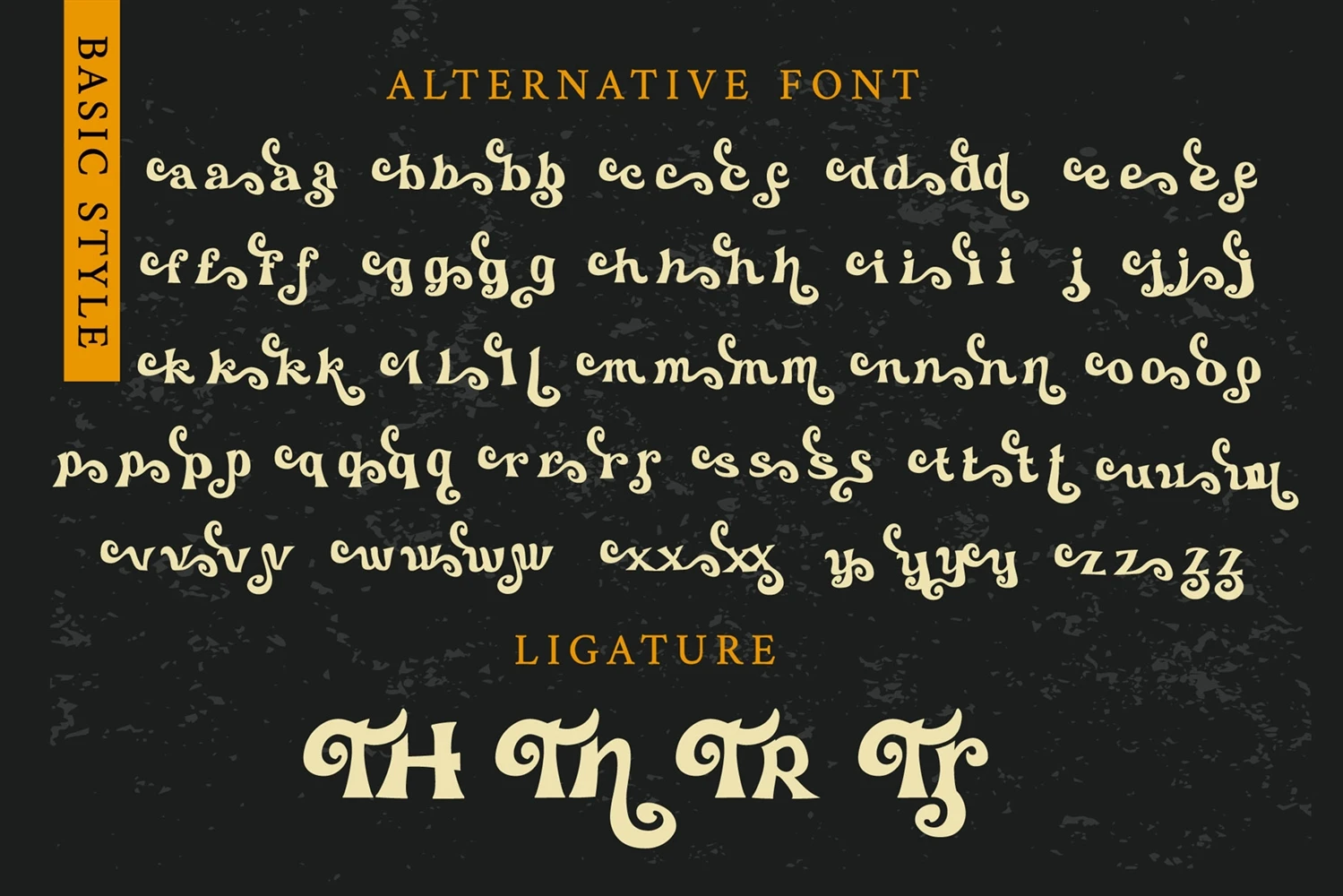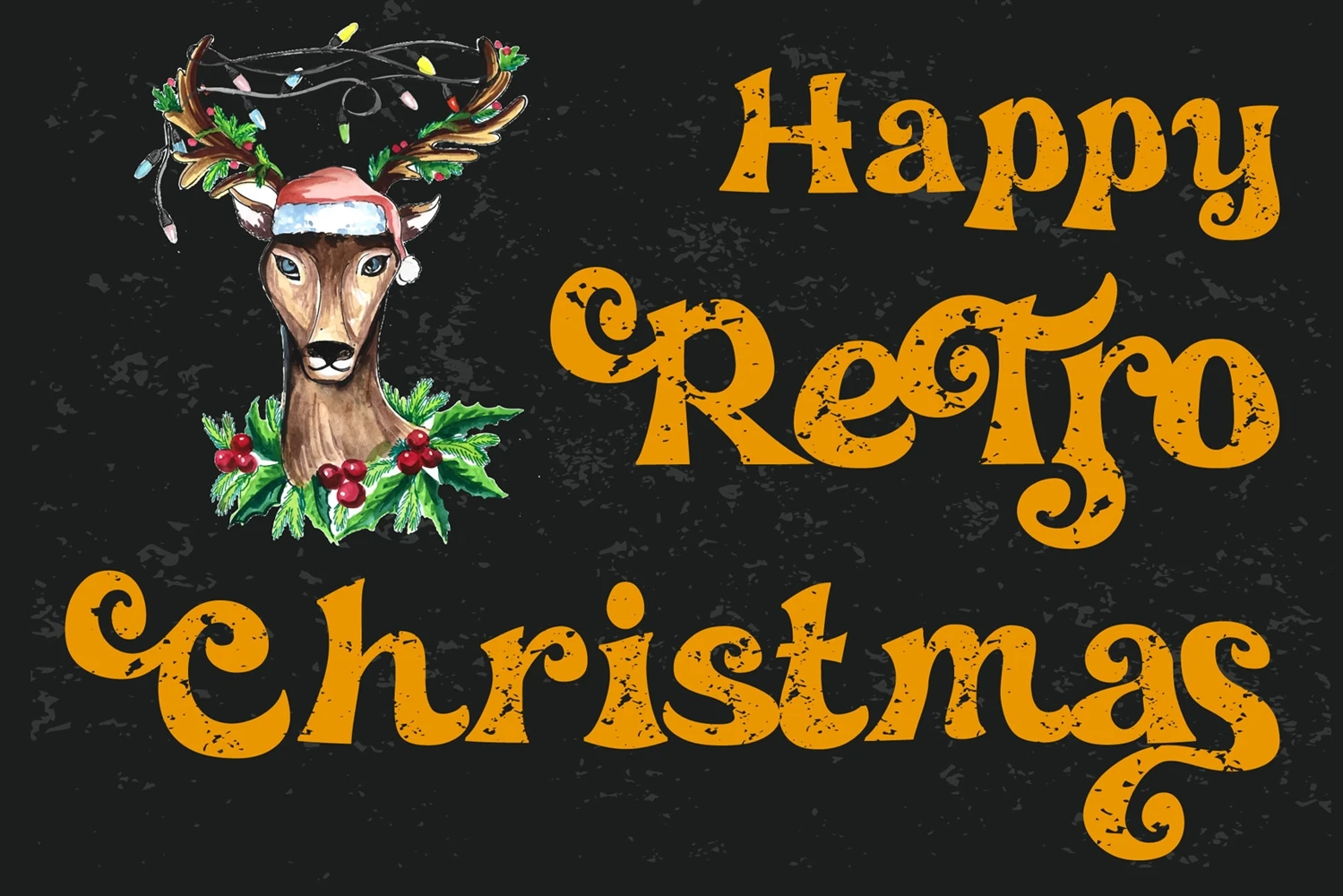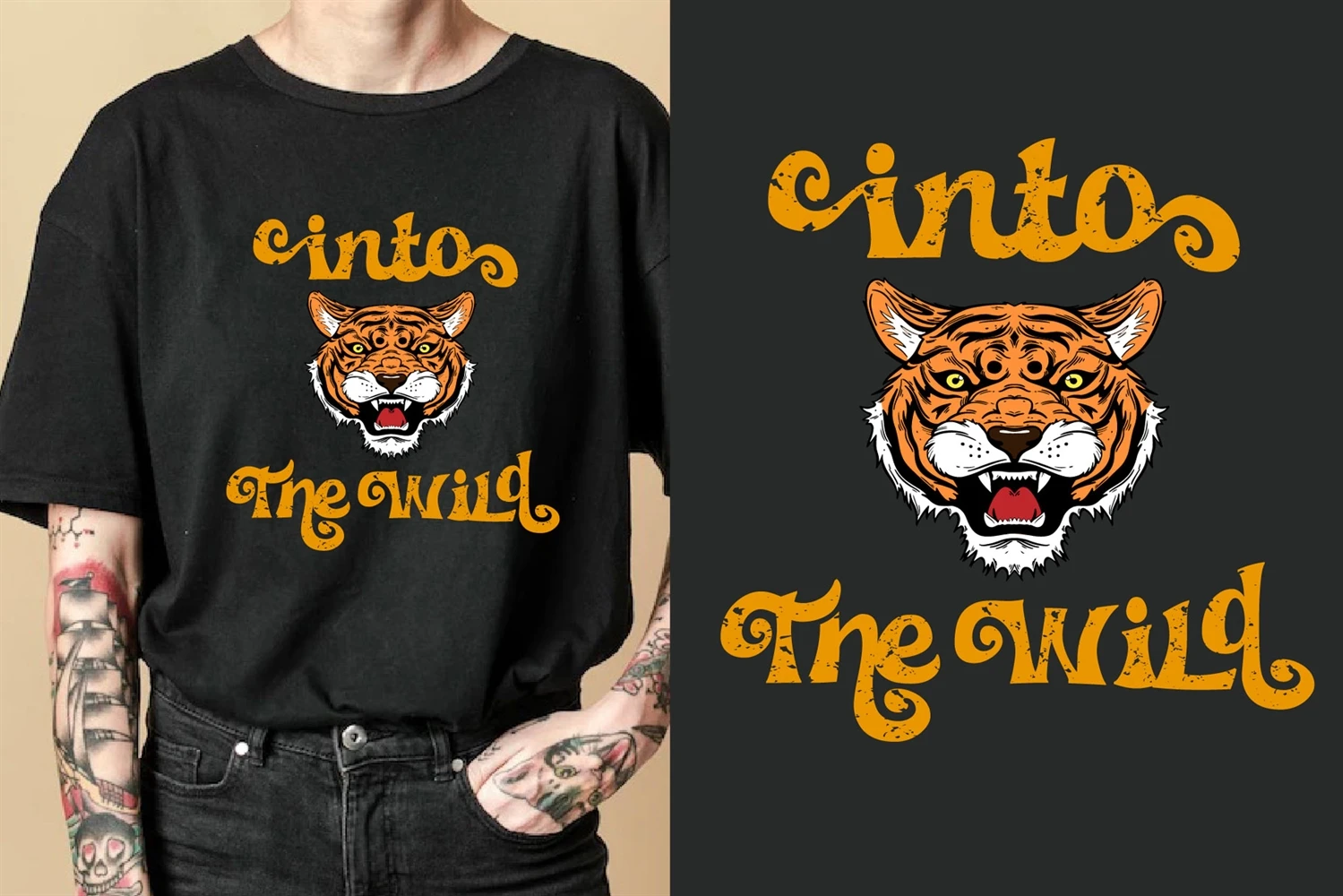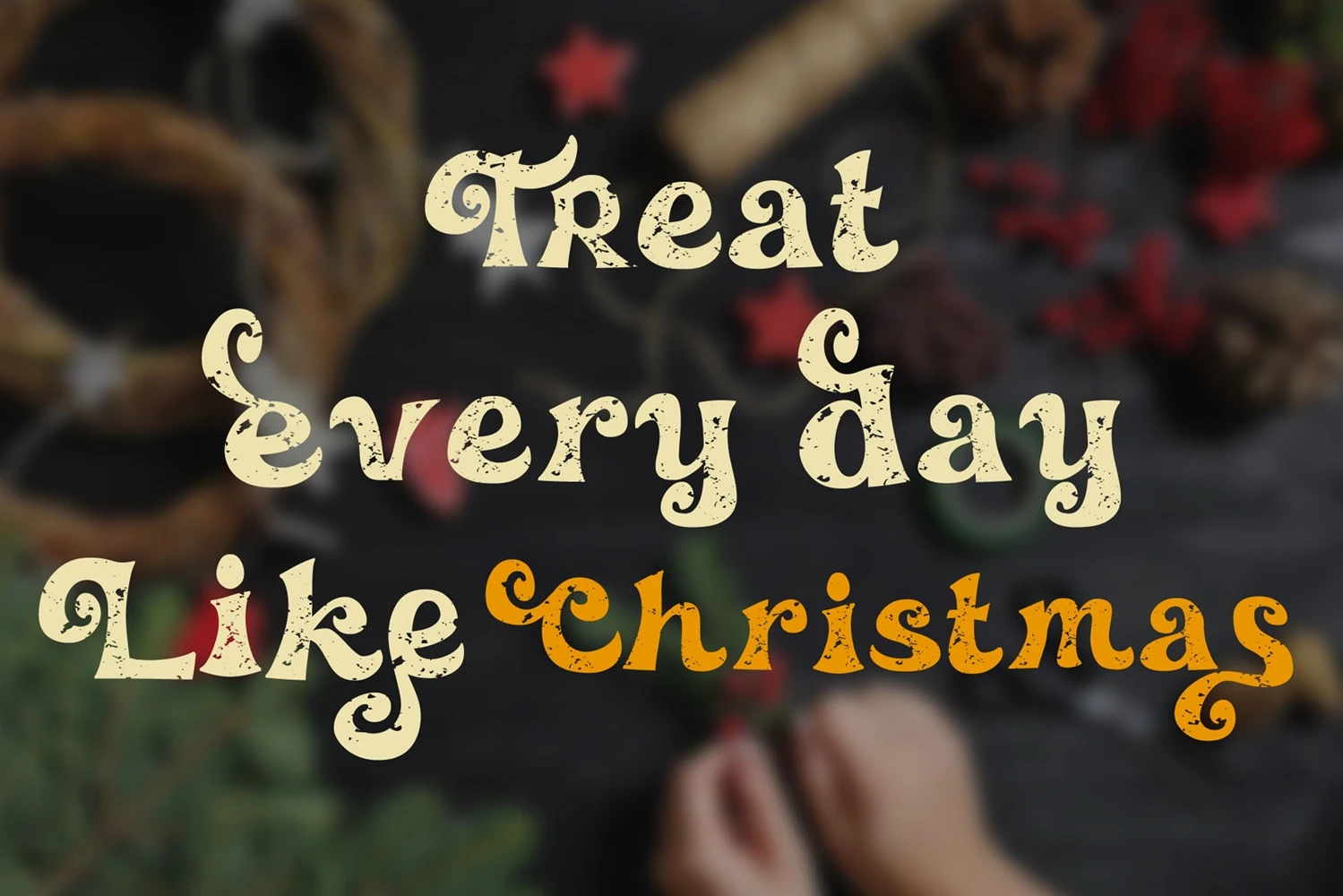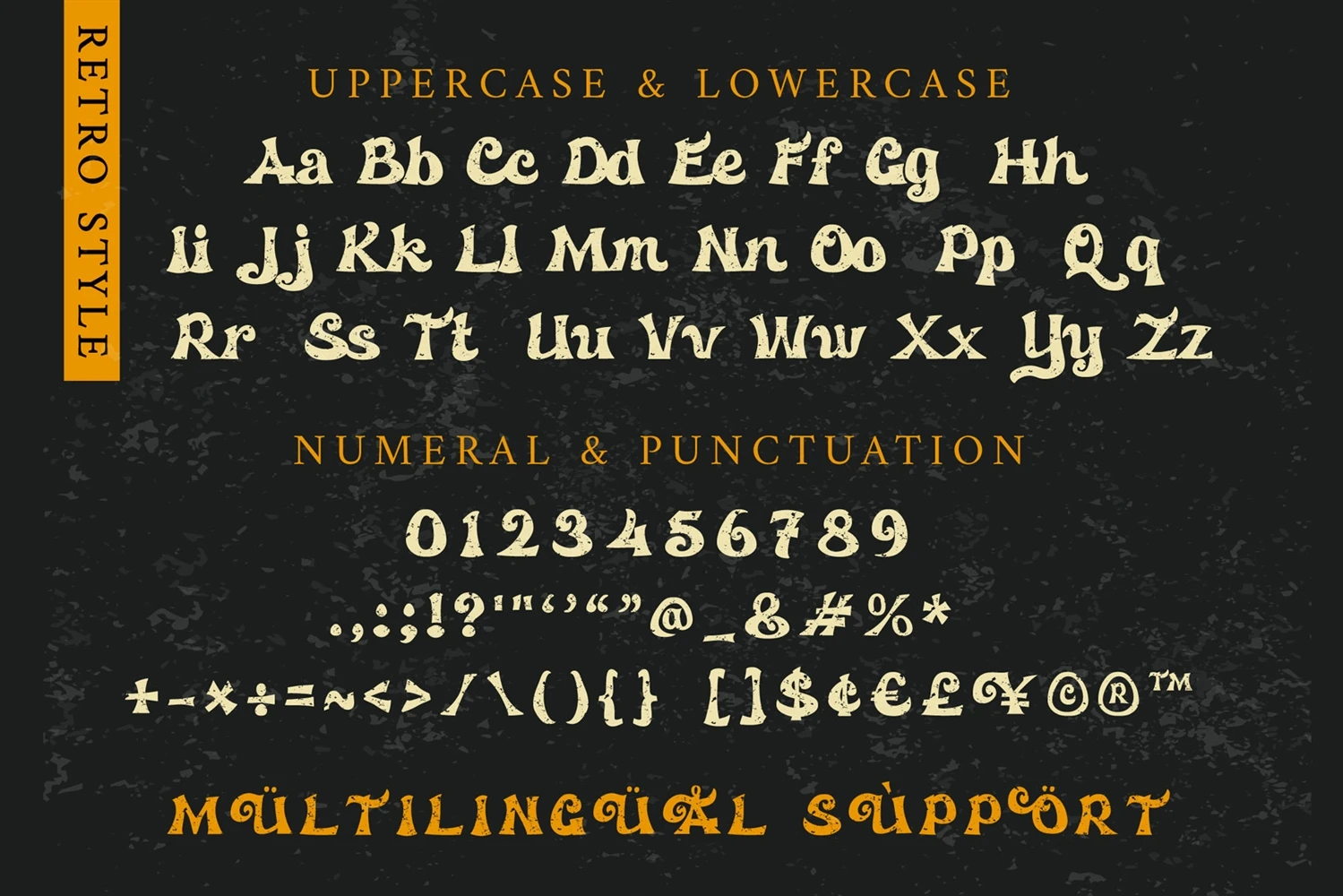
Wild Deer is a retro vintage style display font. Inspired by the retro fonts of the 70s and 80s, anything written in this font is instantly recognizable and will grab attention. This unique shape is ideal for poster design, packaging, and branding projects that require a fresh and vibrant touch.